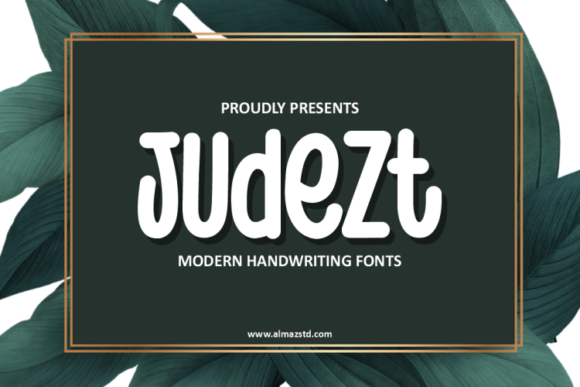
Introducing Judezt Font - The Ultimate Handwriting Masterpiece for Your Creative Ventures
Step into a realm of elegance and authenticity with Judezt Font, a captivating script font that will transform your creative projects into mesmerizing works of art. Experience the fusion of meticulous handcrafting and digital precision, resulting in a font that is both visually stunning and highly versatile.
Judezt is not just a font; it's a journey through the art of calligraphy, where each letter is a stroke of brilliance. Created with passion and attention to detail, this font captures the essence of handwritten beauty, evoking a sense of intimacy and personal connection. Unleash your creativity and let Judezt weave its magic into your designs.
With its natural flow and captivating curves, Judezt is the perfect choice for a wide range of applications. Craft stunning posters that come alive with a touch of handwritten charm. Create web graphics that captivate and engage your audience. Bring life to game graphics with intricate details and authentic textures. Design t-shirts that make a statement, expressing your individuality with every thread.
Imagine your videos infused with the elegance of Judezt, where each frame tells a story of beauty and artistry. Craft signs that command attention, leaving an unforgettable impression on your customers. Design logos that exude sophistication and professionalism, setting your brand apart from the rest.
Judezt's versatility knows no bounds. Whether you're a graphic designer, a web developer, a content creator, or simply a creative enthusiast, this font will elevate your projects to new heights. Its adaptability makes it a must-have in any creative toolbox.
Join the countless artists, designers, and entrepreneurs who have discovered the transformative power of Judezt Font. Dive into a world of endless possibilities and let your creativity flourish like never before.
1. Embark on a creative journey with Judezt, a font that sparks imagination and propels your designs to new heights.
2. Experience unparalleled versatility, seamlessly adapting to a multitude of creative endeavors, from posters to t-shirts, and from web graphics to game graphics.
3. Captivate your audience with the authentic beauty of handwritten letters, evoking a sense of intimacy and personal connection.
4. Elevate your brand identity with Judezt, crafting logos that radiate sophistication and elegance, leaving a lasting impression on your customers.
5. Uncover a treasure trove of design possibilities, letting Judezt ignite your creativity and transform your projects into masterpieces.